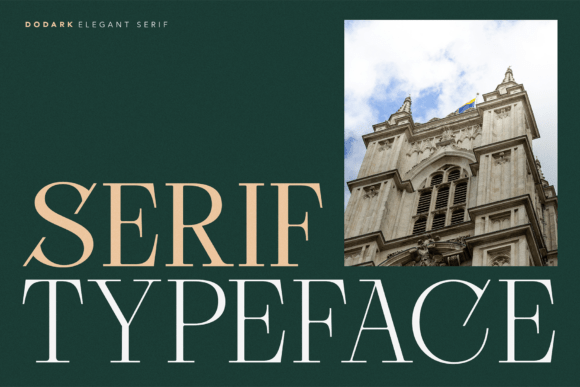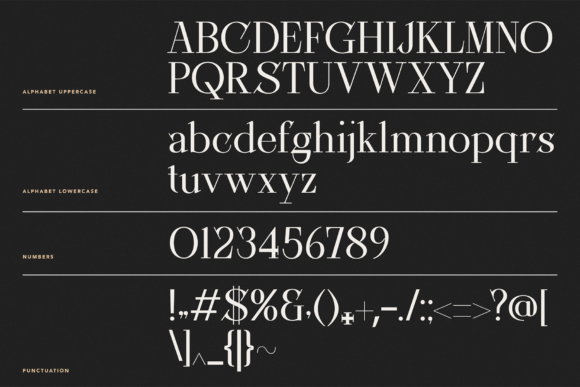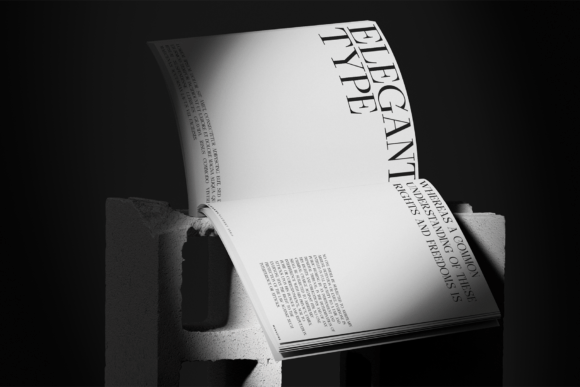
Dodark Font: The Epitome of Elegance and Versatility in Typeface Design
In the realm of typography, few fonts have managed to strike a balance between boldness and sophistication as effectively as Dodark Elegant. This stunning typeface is the perfect blend of class and innovation, making it an ideal choice for designers and crafters looking to elevate their projects with a touch of modernity. In this article, we’ll delve into the world of Dodark Elegant, exploring its features, benefits, and applications, as well as provide insights into why it’s becoming a go-to font for creatives.
The Essence of Dodark Elegant
Dodark Elegant font is the embodiment of class and innovation in typeface design. Its unique blend of boldness and strength makes it an excellent choice for a wide range of projects, from luxury branding and advertising to packaging and digital media. This font’s versatility is one of its most significant advantages, allowing designers to experiment with various styles and themes without compromising on aesthetic appeal.
Key Features of Dodark Elegant
- Customizability: Dodark Elegant is easily customizable, allowing designers to modify the text and color to their preference. This flexibility opens up endless possibilities for creative expression and experimentation.
- Elegance and Adaptability: Dodark Elegant strikes the perfect balance between elegance and adaptability. Its sophisticated design makes it suitable for high-end projects, while its versatility ensures it can be used in a variety of contexts.
Applications of Dodark Elegant
Dodark Elegant’s versatility makes it an excellent choice for a wide range of applications, including:
- Luxury Branding: Create a lasting impression with Dodark Elegant’s sophisticated design, perfect for luxury brands looking to establish a high-end image.
- Advertising: Grab attention with Dodark Elegant’s bold and eye-catching design, ideal for advertising campaigns that require a touch of elegance.
- Packaging: Elevate your packaging design with Dodark Elegant’s unique blend of style and sophistication.
- Digital Media: Use Dodark Elegant to add a touch of class to your digital designs, from social media graphics to website headers.
Why Choose Dodark Elegant?
With so many fonts available, why should you choose Dodark Elegant? Here are a few compelling reasons:
- Unique Design: Dodark Elegant’s distinctive design sets it apart from other fonts, ensuring your projects stand out from the crowd.
- Time-Saving: With Dodark Elegant’s customizable features and high-quality files, you can save time and focus on other aspects of your project.
- Professional Results: Achieve professional-looking results with Dodark Elegant’s sophisticated design and precise rendering.
In conclusion, Dodark Elegant font is a game-changer in the world of typeface design. Its unique blend of elegance, boldness, and versatility makes it an ideal choice for designers and crafters looking to elevate their projects. With its customizable features, high-quality files, and wide range of applications, Dodark Elegant is sure to become a staple in your design toolkit. Experience the synergistic blend of elegance and adaptability with Dodark Elegant and take your designs to the next level!